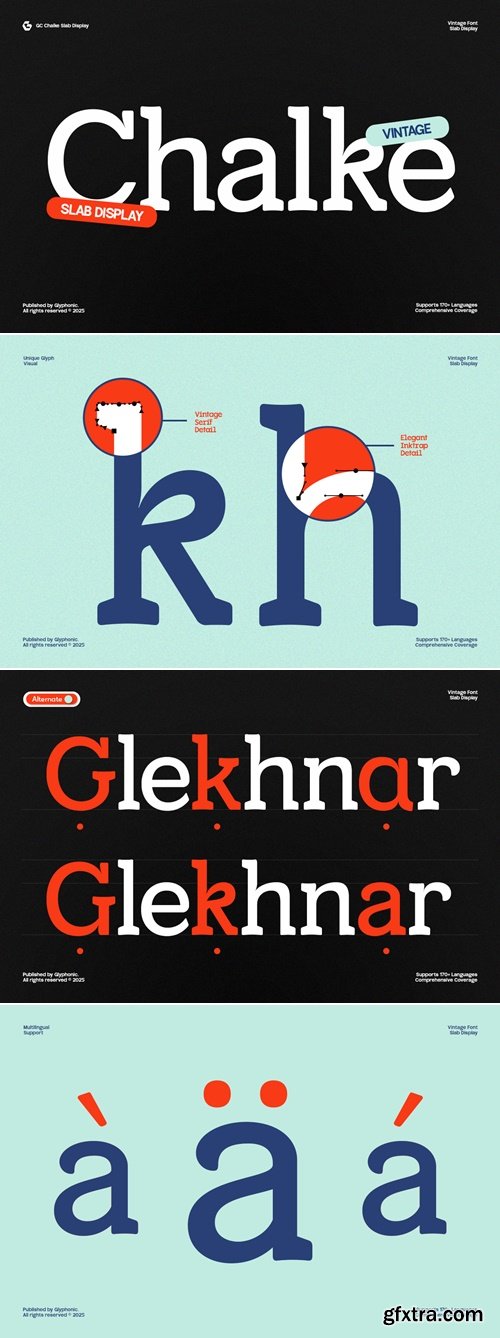
CreativeMarket - GC Chalke – Refined Slab Display
- GC Chalke is a refined slab serif display typeface that masterfully blends classic typographic structure with a touch of playful sophistication. With bold slab serifs, softened curves, and carefully balanced proportions, it offers a distinctive presence that feels both confident and charming. Whether you’re creating standout headlines, stylish logos, retro-inspired packaging, or polished editorial layouts, GC Chalke delivers a bold yet elegant typographic voice.
- Its vintage undertones meet modern versatility, making it the perfect choice for projects that demand impact with personality. Designed to be approachable and timeless, GC Chalke brings subtle flair to branding, posters, magazines, and more.